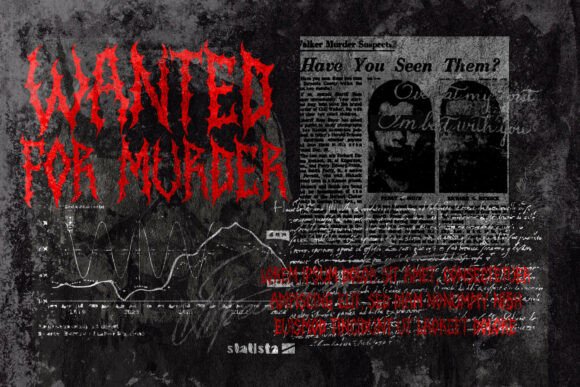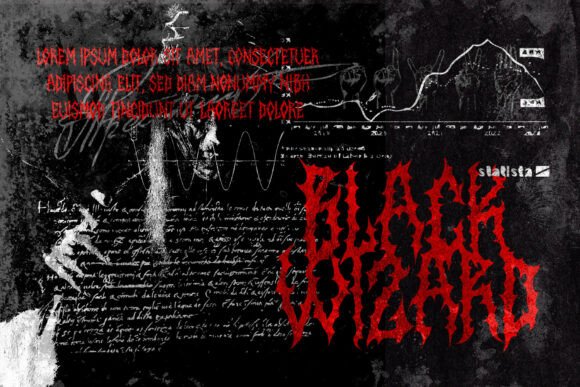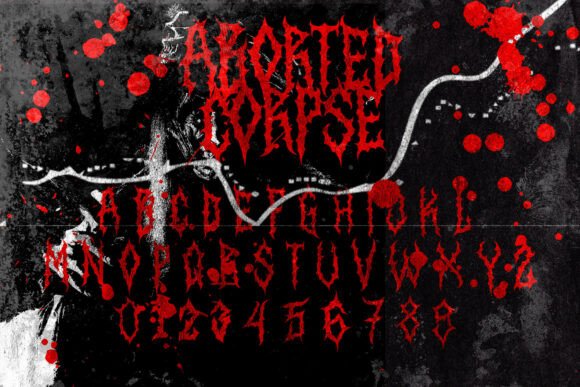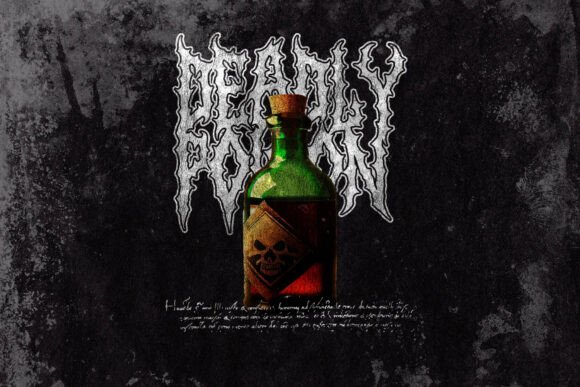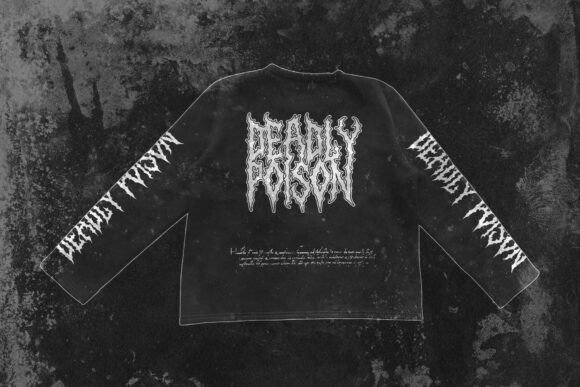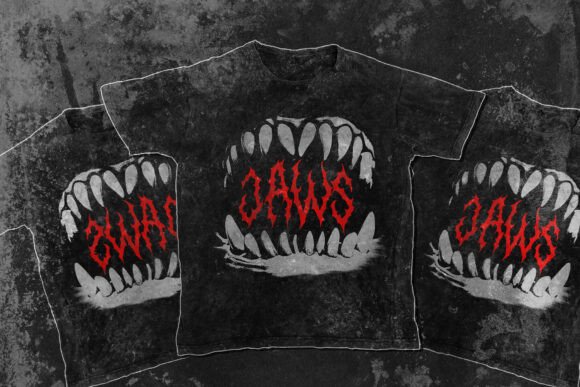
The Unapologetic Aborted Corpse Metal Font: A Designer’s Delight
I still remember the design project that led me to discover the Aborted Corpse metal font. I was working on a logo for a local noise band, and I needed a typeface that could convey the raw energy and aggression of their music. After hours of scouring font libraries and online marketplaces, I stumbled upon Aborted Corpse – a gruesome trash typeface that seemed to scream “this is it!” With its mangled letterforms and jagged, blood-dripping edges, this font was the perfect visual equivalent of blast beats and guttural screams.
Aborted Corpse is not for the faint of heart. This font is a bold statement piece that demands attention. Here’s what I love about it:
- ✨ Unapologetic aesthetic: Aborted Corpse doesn’t ask for permission; it invades your senses with its raw, ugly, and unreadable design.
- ✅ Perfect for extreme music: This font is tailor-made for death metal logos, grindcore flyers, horror zines, and any project that craves filth, fury, and pure audio/visual violence.
- 💥 High-impact visuals: Aborted Corpse delivers carnage in every glyph, making it perfect for crafting merch for noise bands, building anti-aesthetic layouts, or terrifying your viewers.
However, there are a few quirks to keep in mind:
- ⚠️ Legibility limitations: Aborted Corpse is designed to be unreadable in the best way possible, which can make it challenging to use for body text or lengthy paragraphs.
- 🤔 Limited versatility: While Aborted Corpse excels in extreme music and horror contexts, it may not be the best fit for more refined or elegant designs.
The Backstory Behind Aborted Corpse
Aborted Corpse was born from the dark corners of the design world, where creativity meets chaos. The font’s creator, a rebellious designer with a passion for extreme music, sought to craft a typeface that would reflect the raw energy and aggression of the underground music scene. Inspired by the likes of grindcore and death metal, Aborted Corpse was designed to be a visual representation of sonic violence – a font that would push the boundaries of good taste and challenge the status quo.
| Font Name | Aborted Corpse Metal Font |
| Author | Fonday Design Studio |
| What is Aborted Corpse? | Aborted Corpse is a gruesome trash typeface designed for extreme music and horror-themed designs. |
| Is Aborted Corpse legible? | Aborted Corpse is designed to be unreadable in the best way possible, making it challenging to use for body text or lengthy paragraphs. |